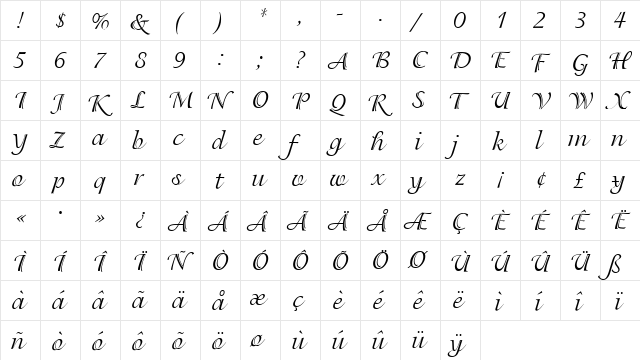
IsadoraEF Regular
Design Context for IsadoraEF Typeface
IsadoraEF takes a measured approach to typography — its balanced proportions and neutral character make it a reliable workhorse for both digital and print work.